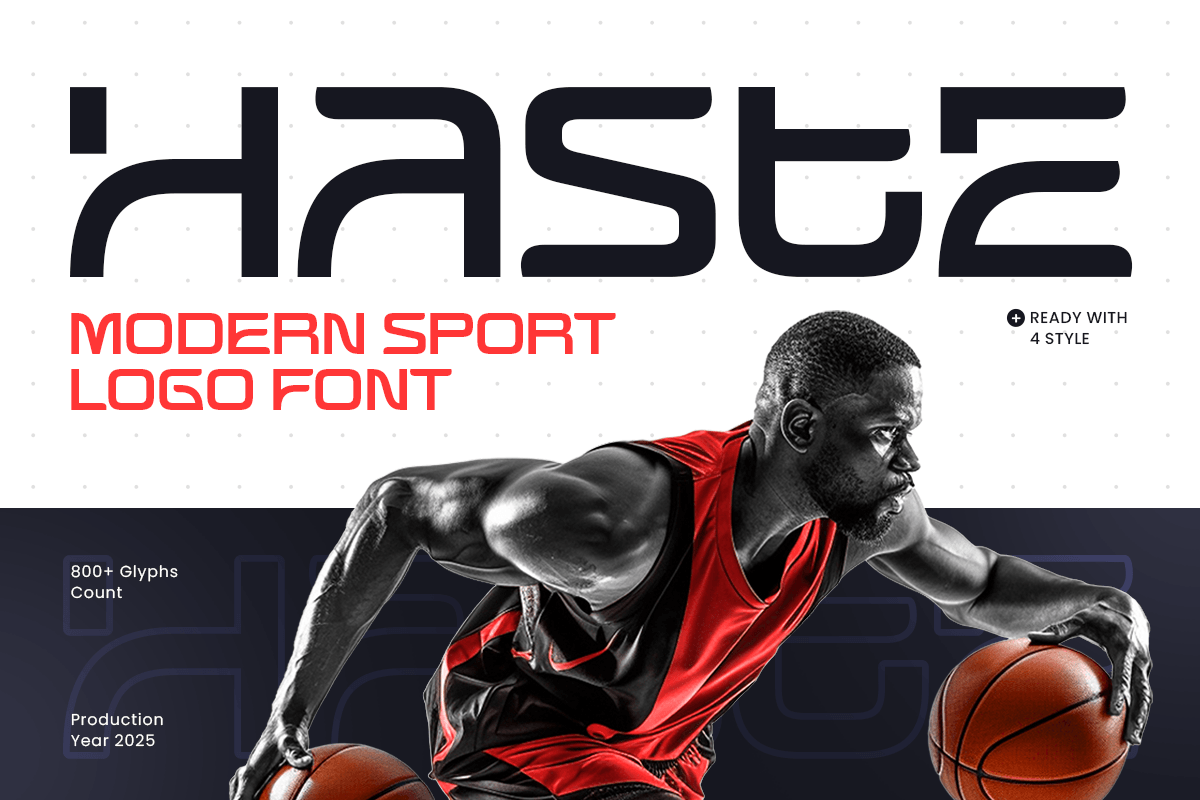
Haste
-Modern Techno Sport Logo Font
Haste - Modern Techno Sport Logo Font
HASTE is a modern techno sport logo font engineered for speed, impact, and competitive energy. With sharp angles, forward-leaning details, and a futuristic rhythm, HASTE delivers a powerful athletic vibe that feels ready for motion—perfect for brands that want to look fast, modern, and fearless.
Designed for sports branding, esports identities, racing visuals, and fitness campaigns, HASTE performs best in logos, team branding, visual graphics, posters, and bold headlines. Its high-contrast structure and aggressive styling help your typography cut through the noise on social media, streaming overlays, and advertising.
From gaming tournaments and event branding to performance product packaging and event signage, HASTE brings a strong, modern presence that turns every word into a statement of momentum and power.
HASTE – Modern Techno Sport Features
• Sharp techno letterforms with a sporty, high-speed attitude
• Ideal for logos, team branding, esports, and racing-inspired designs
• Strong headline presence for posters, banners, and social media graphics
• Great for gaming overlays, streaming assets, and athletic campaigns
• Built for both digital and print applications
• OpenType features for flexible typographic styling
Bring speed and confidence to your brand with HASTE — built for modern sport and techno-powered identity. ⚡